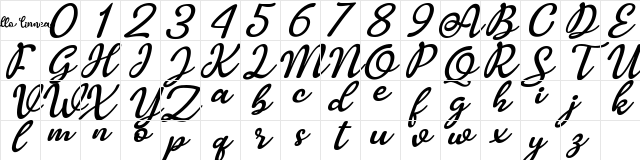
Hello Linnea Italic Regular
Design Context for Hello Linnea Italic Typeface
Hello Linnea Italic is a composed and adaptable typeface that performs quietly and consistently across a wide range of design contexts. The slanted form adds forward momentum and visual energy.
Pro Tip: Use Hello Linnea Italic for emphasis, pull quotes, and subheadings where its slanted energy can add rhythm to the layout.